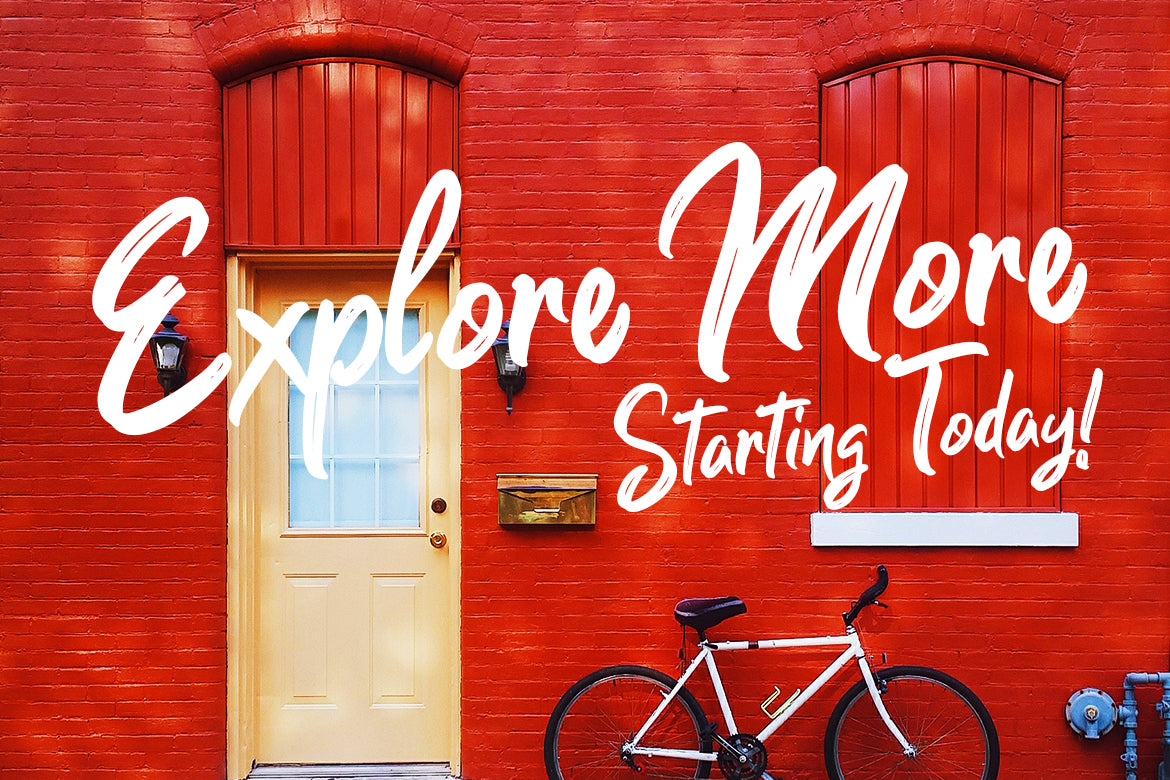
Guttenbay - Free Brush Typeface
We're glad to feature this gorgeous Guttenbay - Free Brush Typeface. Download this free font from the source of Creatype Studio. Easily amaze your audience with this fancy font and make your graphic designs pop up from the crowd.